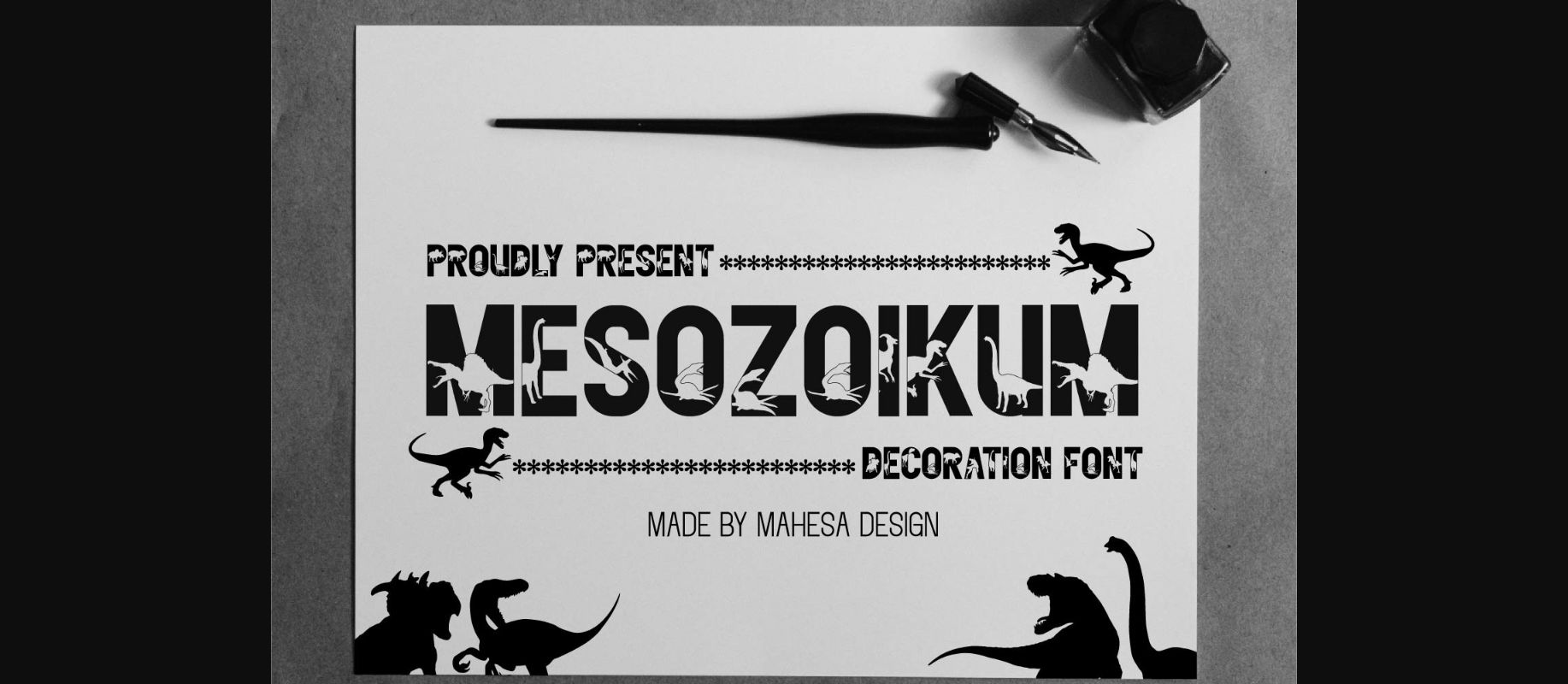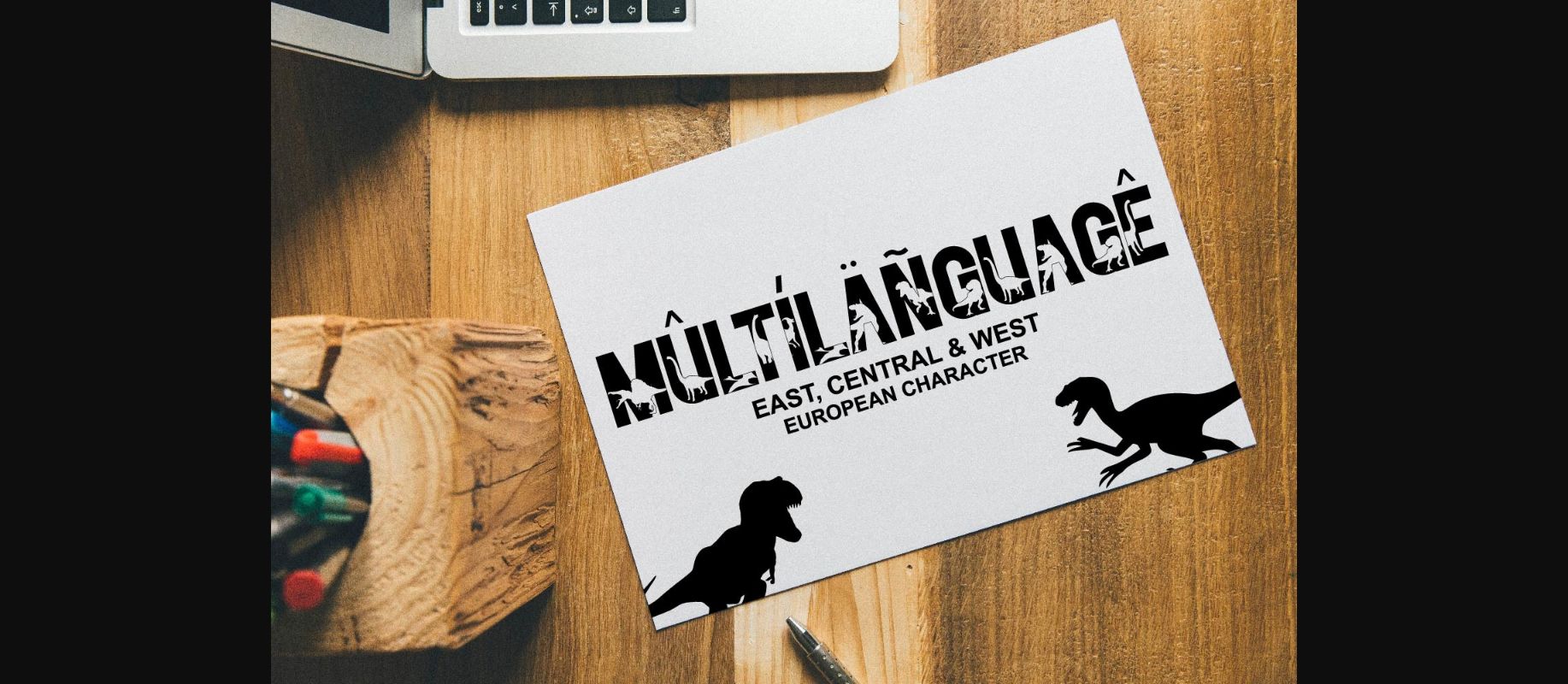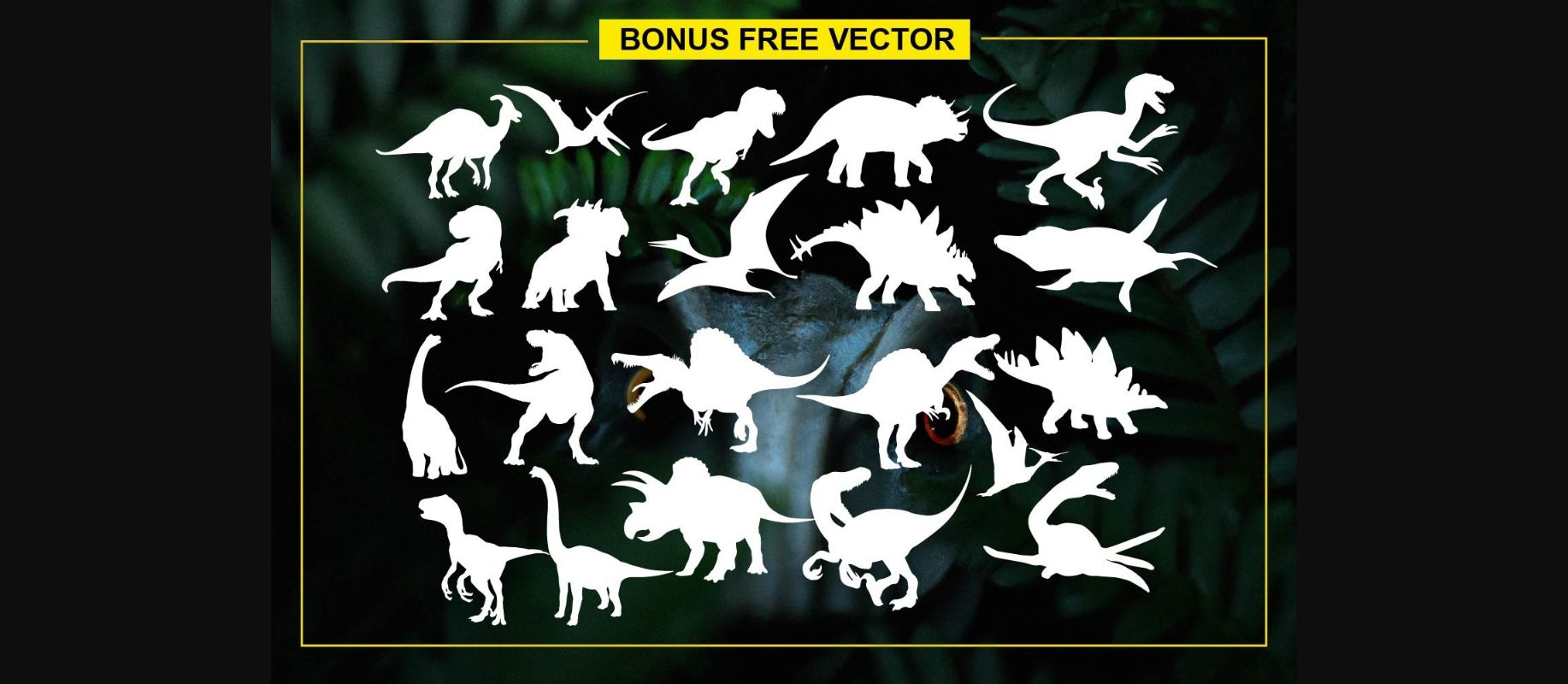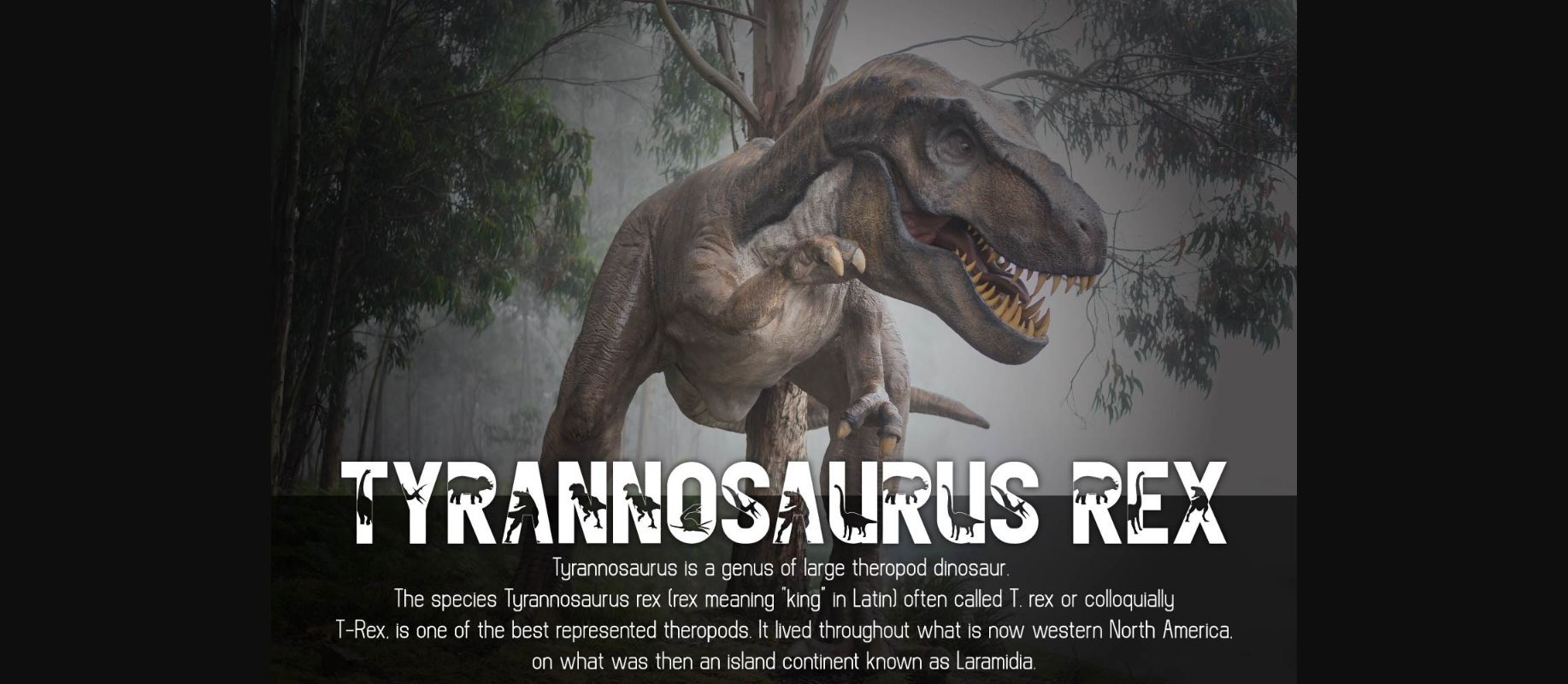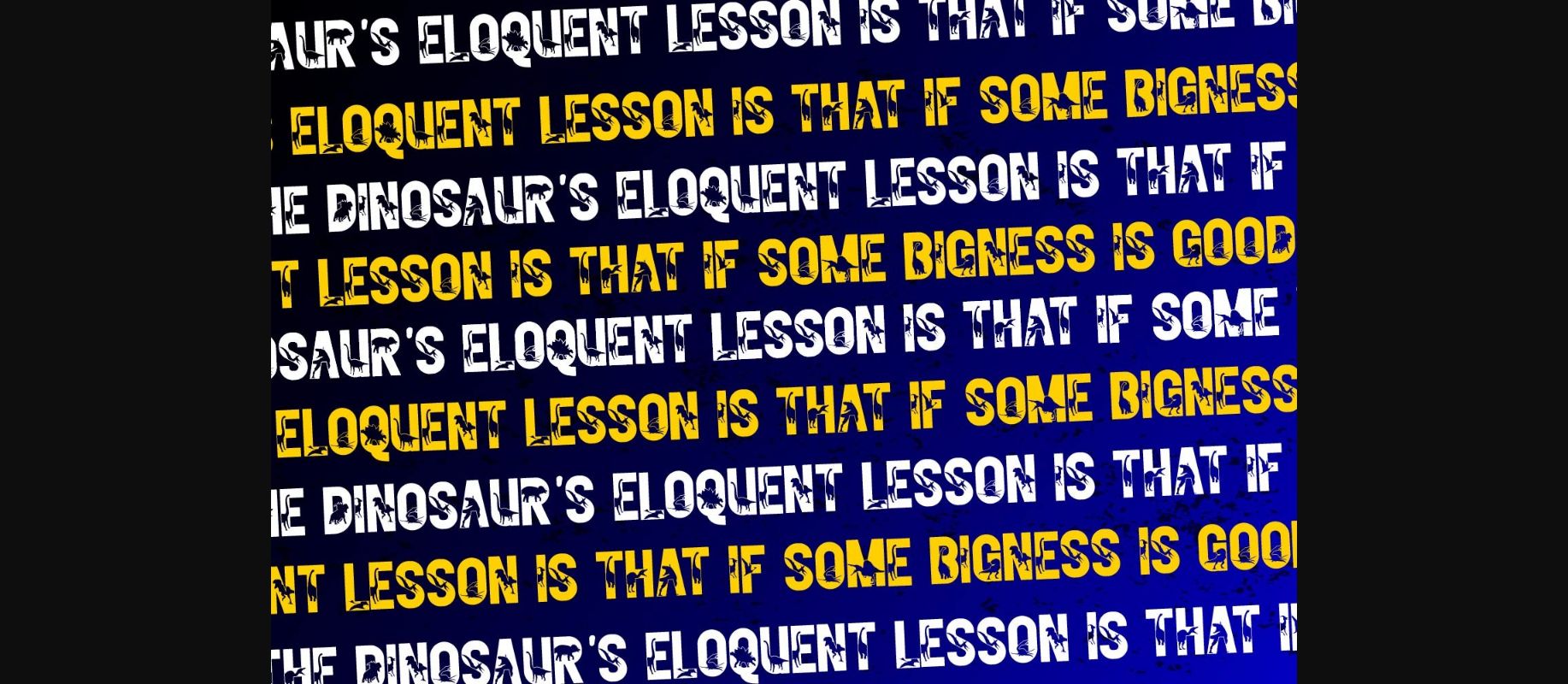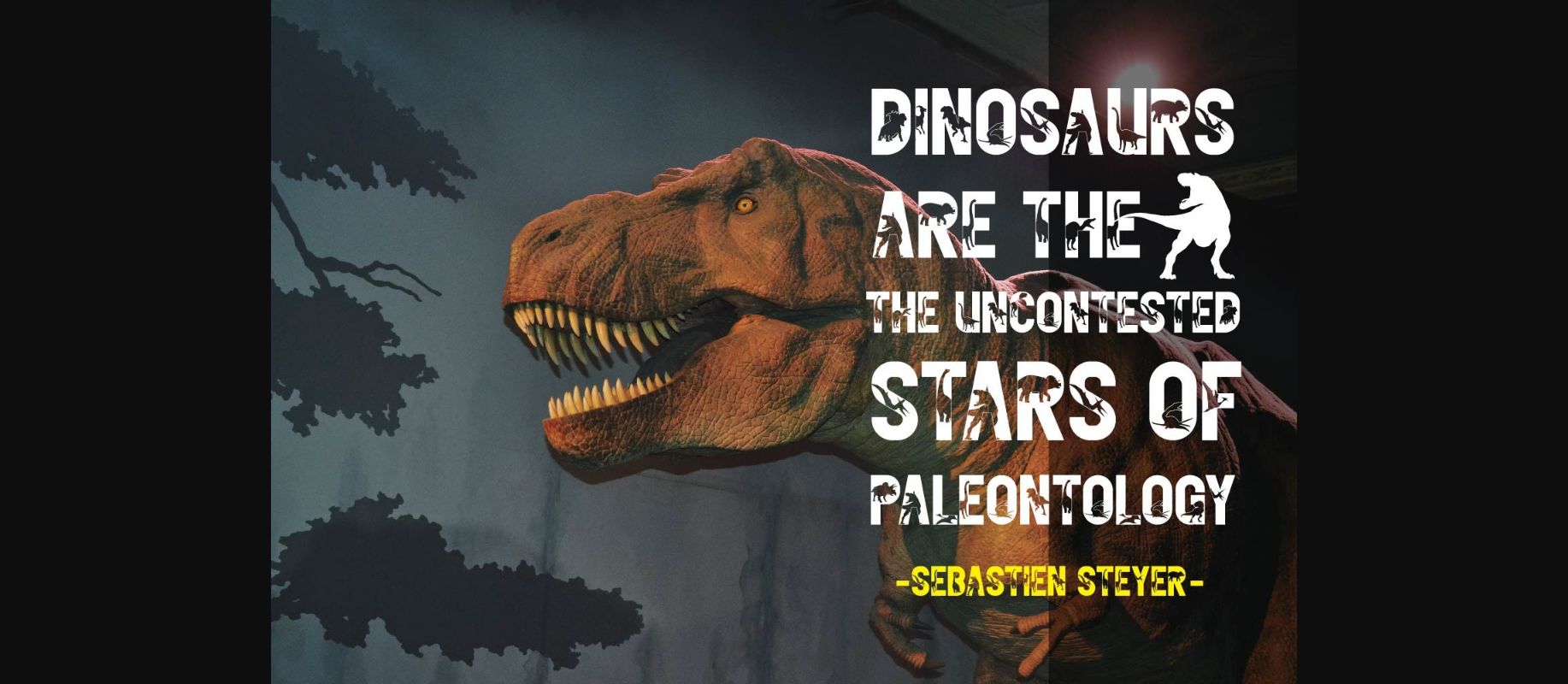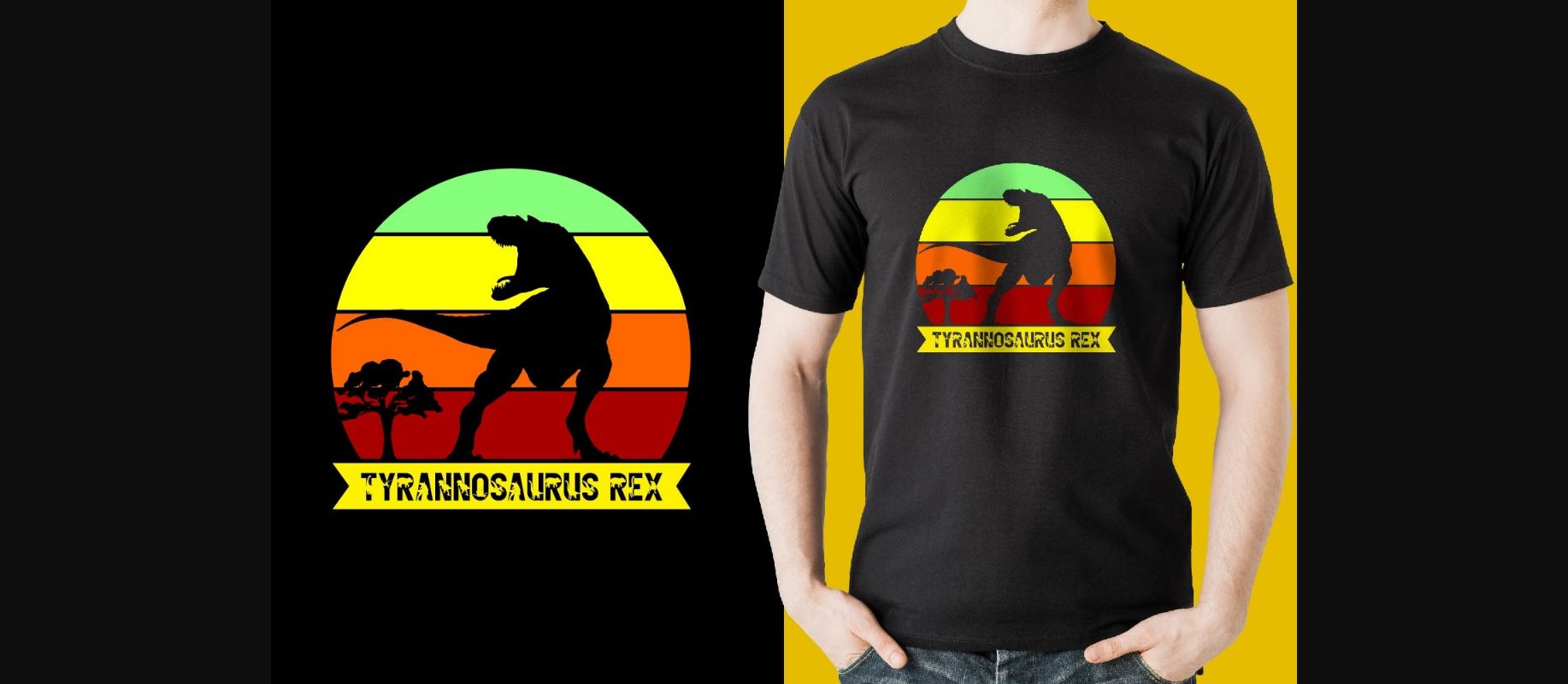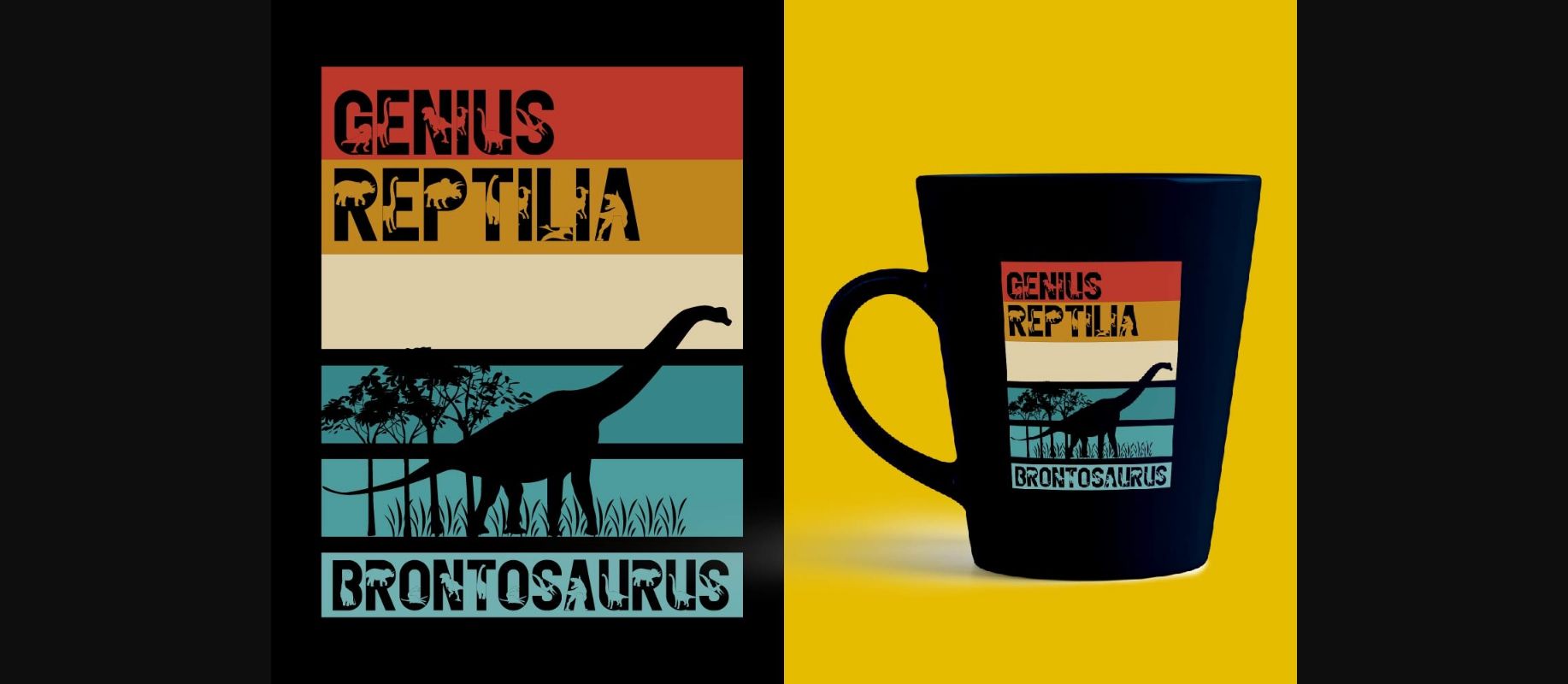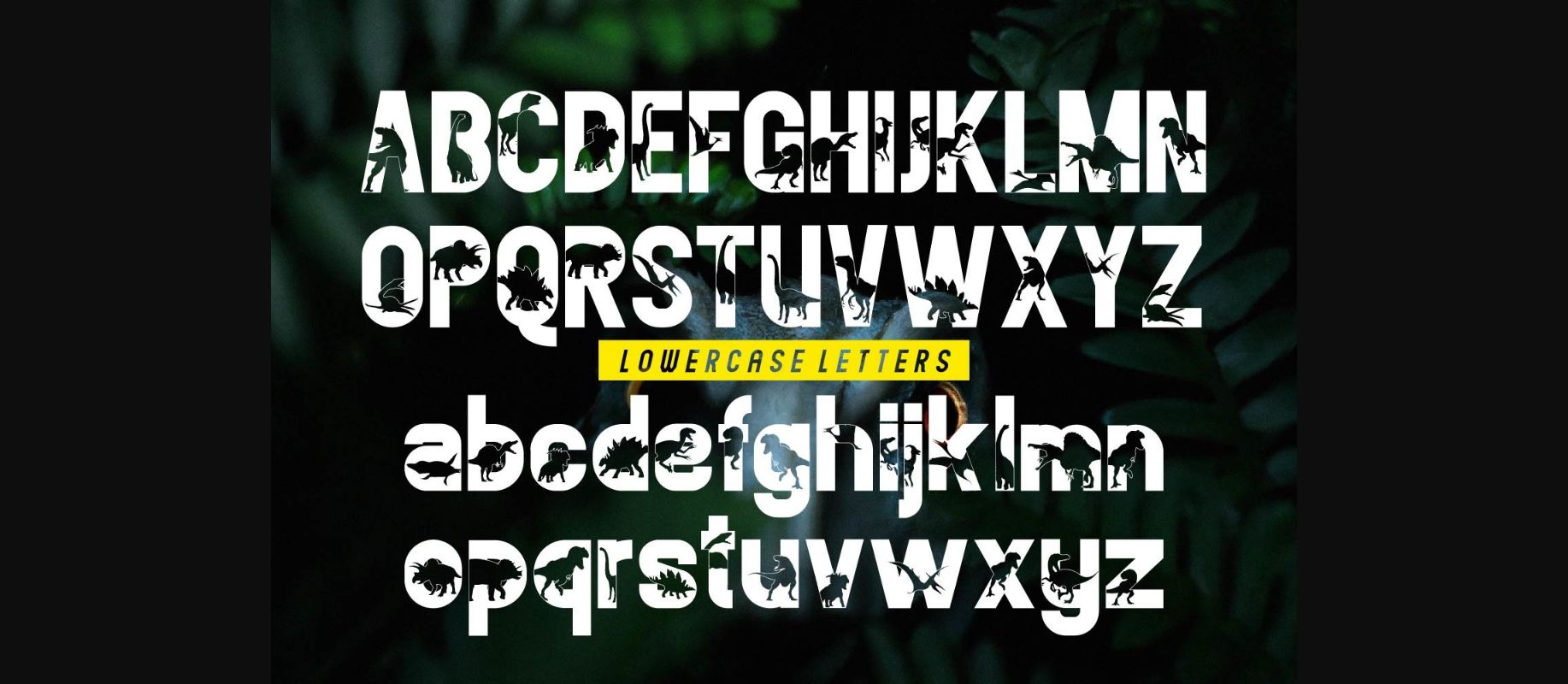
Mesozoikum Font
About Mesozoikum Font
Mesozoikum is a cute and adorable decorative font perfect for all Dinosaur lovers. Take a trip back to the Mesozoic Era with Mesozoikum, a typeface inspired by the prehistoric age of the dinosaurs. Featuring bold, angular letterforms reminiscent of dinosaur scales and teeth, this font is perfect for projects that require a rugged, primal feel. Mesozoikum is a great choice for anything from posters and flyers to logos and branding materials.